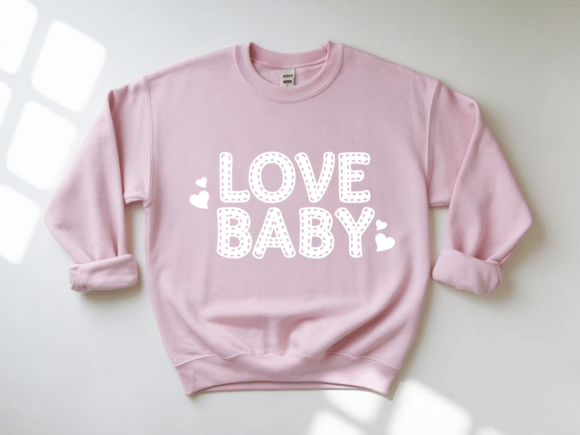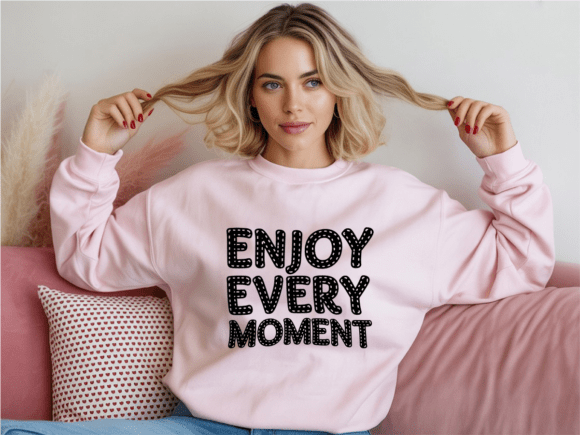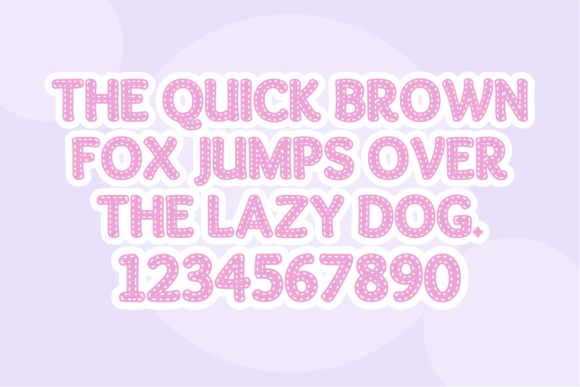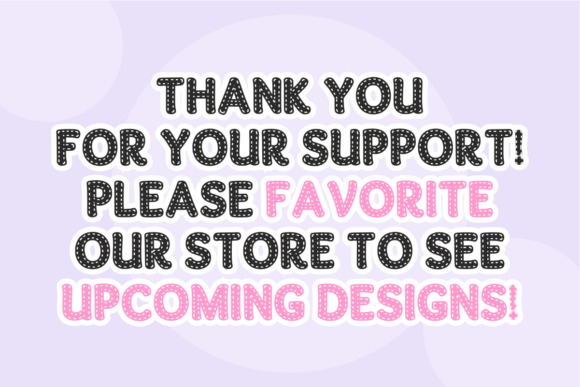
Baby Bold Font: The Ultimate Choice for Adorable Designs
Are you looking for a font that can add a touch of sweetness to your designs? Look no further than Baby Bold, a playful display font that features chunky, rounded characters with a charming stitched dashed-line detail inside. This adorable font is perfect for anything related to babies, kids, and whimsical crafts, making it a must-have for designers and crafters alike.
The Characteristics of Baby Bold Font
Baby Bold font is a unique and eye-catching font that boasts the following characteristics:
- Chunky and rounded characters: The font features thick and rounded characters that give it a playful and childlike feel.
- Stitched dashed-line detail: The font has a charming stitched dashed-line detail inside each character, making it look like a cozy quilt or a cute handmade sticker.
- Handcrafted feel: The font instantly adds a warm, handcrafted feel to any design, making it perfect for nursery decor, school projects, and kids’ apparel.
Best Use Cases for Baby Bold Font
Baby Bold font is versatile and can be used for a variety of design projects, including:
- Nursery Wall Art & Room Decor: Create adorable wall art, nursery decor, and room signs that will delight both kids and parents.
- Baby Shower Invitations & Stationery: Design beautiful baby shower invitations, stationery, and greeting cards that will set the tone for the special occasion.
- Kids’ Apparel, Onesies, & T-shirt Designs: Create cute and playful designs for kids’ apparel, onesies, and t-shirts that kids will love.
- Cricut & Silhouette Crafting Projects: Use Baby Bold font for Cricut and Silhouette crafting projects, such as paper crafts, vinyl decals, and iron-on designs.
- Birthday Posters & Cake Toppers: Design eye-catching birthday posters and cake toppers that will make any birthday celebration special.
- Student Crafts & Teacher Resources: Use Baby Bold font for student crafts and teacher resources, such as classroom decor, worksheets, and activity sheets.
- Scrapbooking & Digital Stickers: Add a touch of sweetness to scrapbooking and digital stickers with Baby Bold font.
Why Choose Baby Bold Font?
There are many reasons why Baby Bold font stands out from other fonts:
- Unique and eye-catching: The font’s chunky and rounded characters, along with its stitched dashed-line detail, make it a one-of-a-kind font.
- Versatile: Baby Bold font can be used for a wide range of design projects, from nursery decor to kids’ apparel.
- Easy to read: The font is easy to read, making it perfect for designs that require a clear and legible font.
- Instantly adds a handcrafted feel: The font instantly adds a warm, handcrafted feel to any design, making it perfect for designers and crafters who want to create unique and personalized designs.
Baby Bold font is a must-have for designers and crafters who want to create adorable and unique designs for babies, kids, and whimsical crafts. With its chunky and rounded characters, stitched dashed-line detail, and handcrafted feel, Baby Bold font is perfect for a wide range of design projects. Whether you’re creating nursery decor, kids’ apparel, or scrapbooking and digital stickers, Baby Bold font is the ultimate choice for adding a touch of sweetness to your designs.